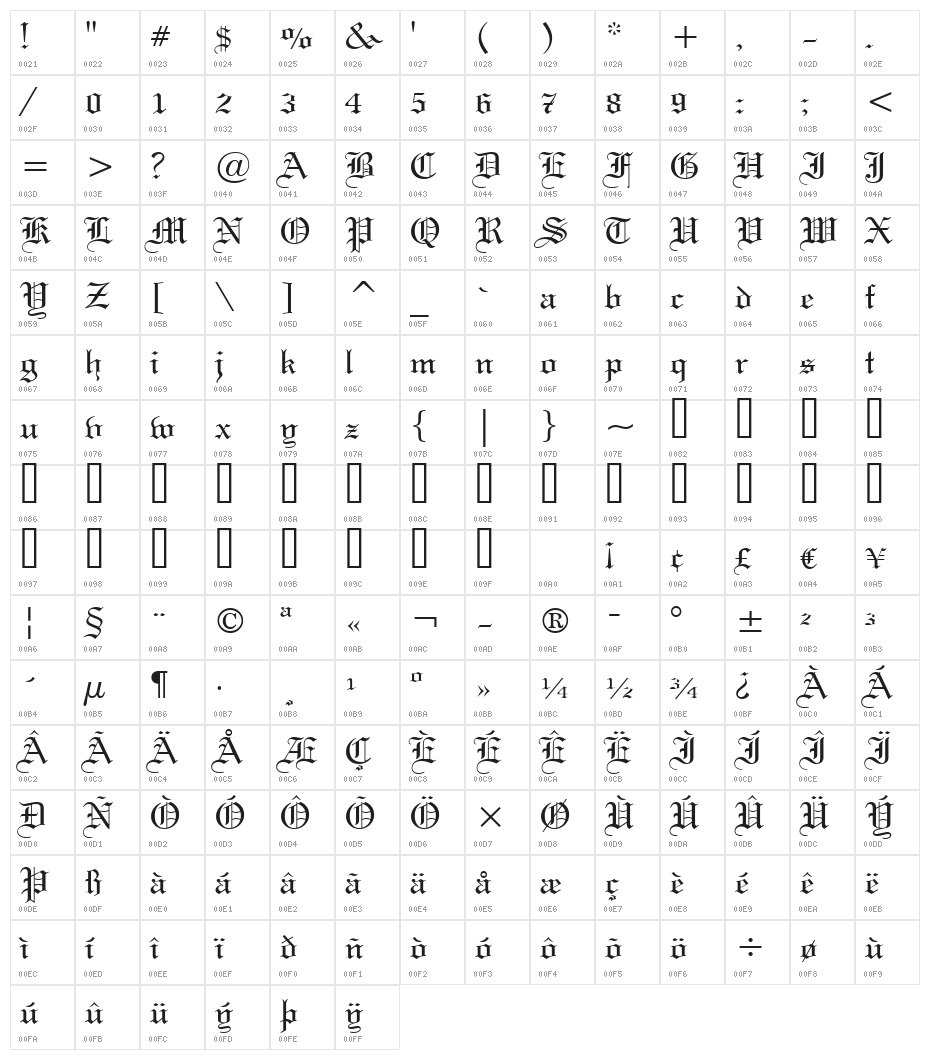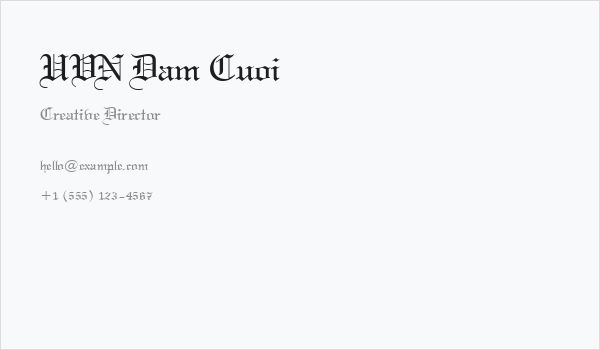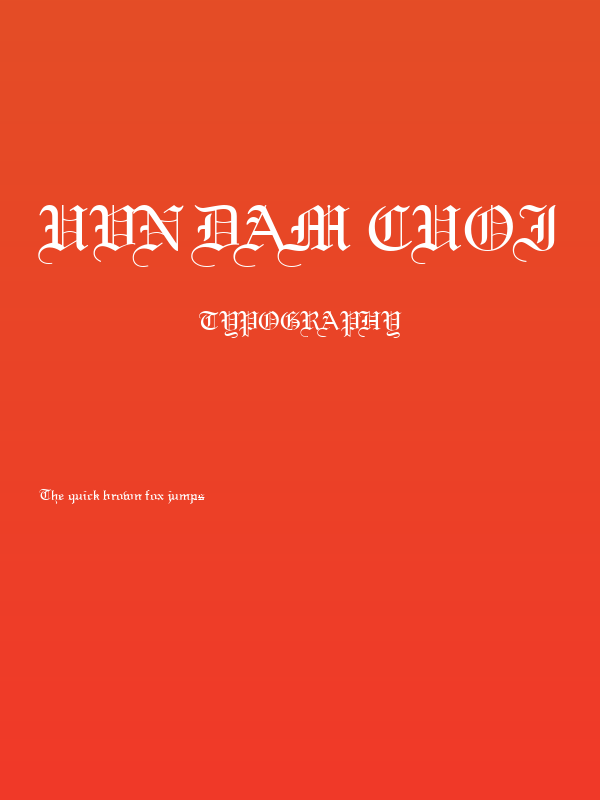
UVN Dam Cuoi Font
UVN Dam Cuoi Description
This font features a classic blackletter style, characterized by its intricate and ornate design. The uppercase letters are adorned with elaborate flourishes, giving them a regal and historical appearance. The lowercase letters maintain the traditional blackletter sharpness and angularity, providing a cohesive look across the alphabet. Numbers and special characters are designed with the same attention to detail, ensuring consistency throughout. The font's overall aesthetic is reminiscent of medieval manuscripts, making it ideal for projects that require a touch of elegance and tradition.
Overall StyleVintage
Use CaseHeadlines, Logos, Decorative text
Proposed ProjectsSuitable for wedding invitations, historical documents, certificates, and decorative headings.